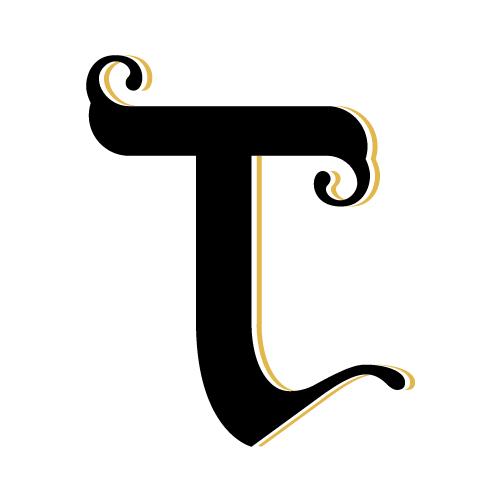
Antelami is a font with a particular moodly style, located between a Romanesque and Gothic period. The endings and serifs give it a Roman-Gothic and religious air.